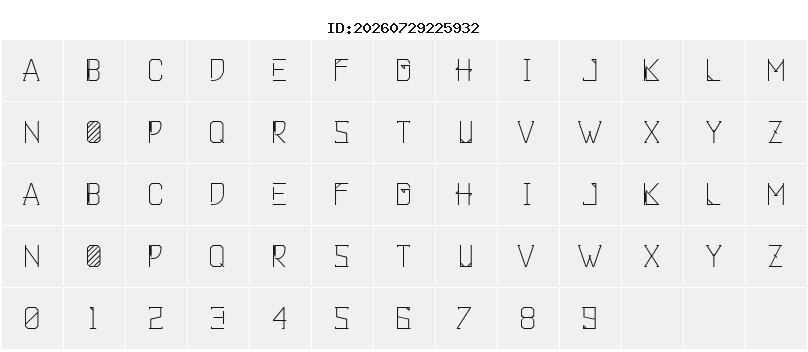
Khemala Preview
• Font Name: Khemala
• Font ID: AlexIanDale: Khemala: 2013
• Full Font Name: Khemala
• PostScript Name: Khemala
• Character Count: 101
• Designer: Alex Ian Dale
• Manufacturer: Alex Ian Dale
About Khemala.ttf
Khemala.ttf is a modern, elegant sans-serif font designed for ultimate readability and visual harmony. Perfect for branding, headlines, web design, and print materials.